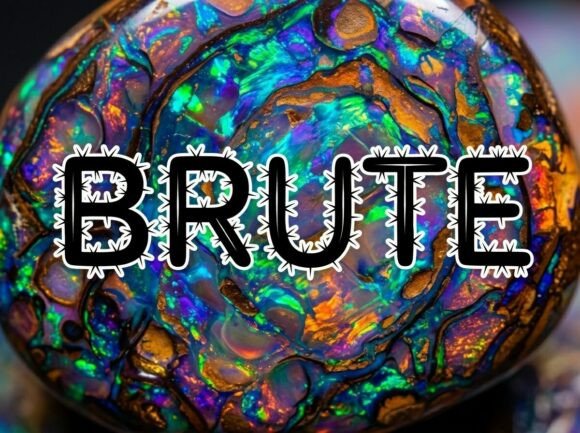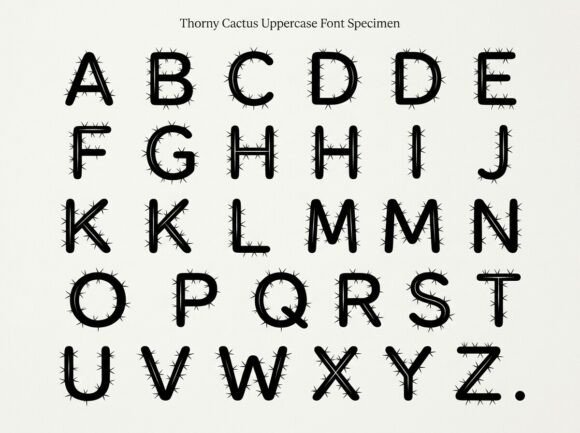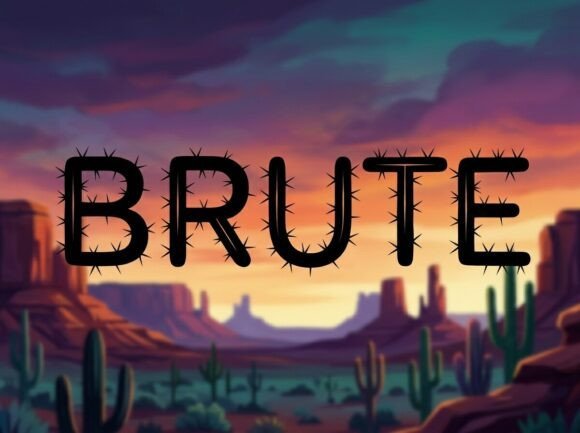
Introduction to Brute Font
Tough as the desert terrain, Brute is a high-impact display font that captures a “rugged-and-resilient” soul.
This typeface features monoline, rounded letterforms uniquely characterized by rhythmic “cactus-thorn” spikes that bridge the gap between classic western motifs and modern illustrative branding With its sturdy structural weight and sharp personality, Brute is the premier choice for independent outdoor adventure identities, boutique hot sauce labels, southwestern lifestyle brands, and high-impact “wild-and-weathered” social media headers.